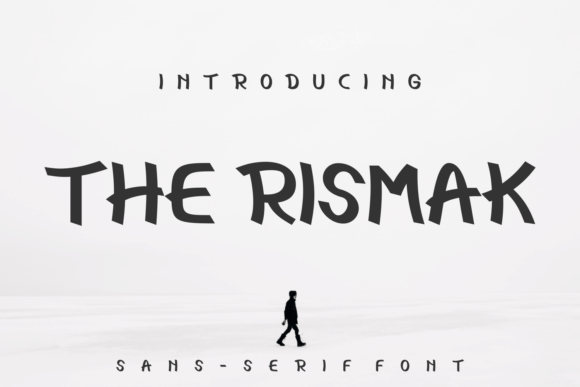
Introducing The Rismak Font – A Sans Serif Masterpiece for Your Cover Letter
Unleash the power of typography with The Rismak Font, a captivating sans serif font designed to make your cover letter stand out from the crowd. Its sharp, clean lines and timeless style will instantly elevate your words, giving them a touch of professionalism and sophistication that will impress any potential employer.
Step into a world of endless possibilities with The Rismak Font. Its versatility knows no bounds, allowing you to craft cover letters that are as unique as your skills and experience. Whether you seek a modern and sleek look or a classic and elegant aesthetic, The Rismak Font has got you covered.
Indulge in the beauty of The Rismak Font's distinct characters, each meticulously crafted to convey confidence and credibility. Its flowing curves and crisp edges create an unparalleled visual harmony that will captivate the attention of hiring managers.
With The Rismak Font, you're not just downloading a font; you're investing in a powerful tool that will empower you to showcase your talents and land your dream job. Its readability and clarity ensure that your words will shine through, leaving a lasting impression that will open doors to new opportunities.
Join the ranks of successful job seekers who have harnessed the power of The Rismak Font to craft cover letters that turn heads. Its timeless appeal and modern touch will give you the edge you need to stand out in the competitive job market.
Don't settle for ordinary fonts that blend into the background. Choose The Rismak Font and let your cover letter speak volumes about your professionalism, creativity, and unwavering determination to succeed.